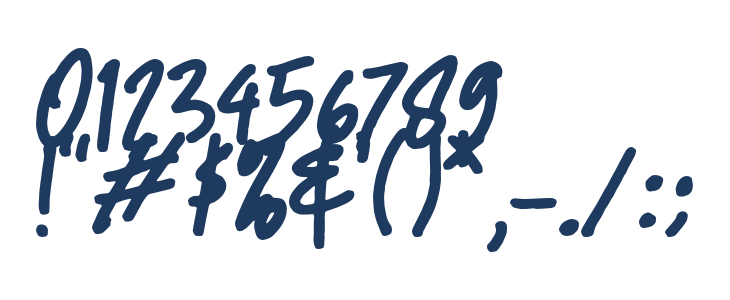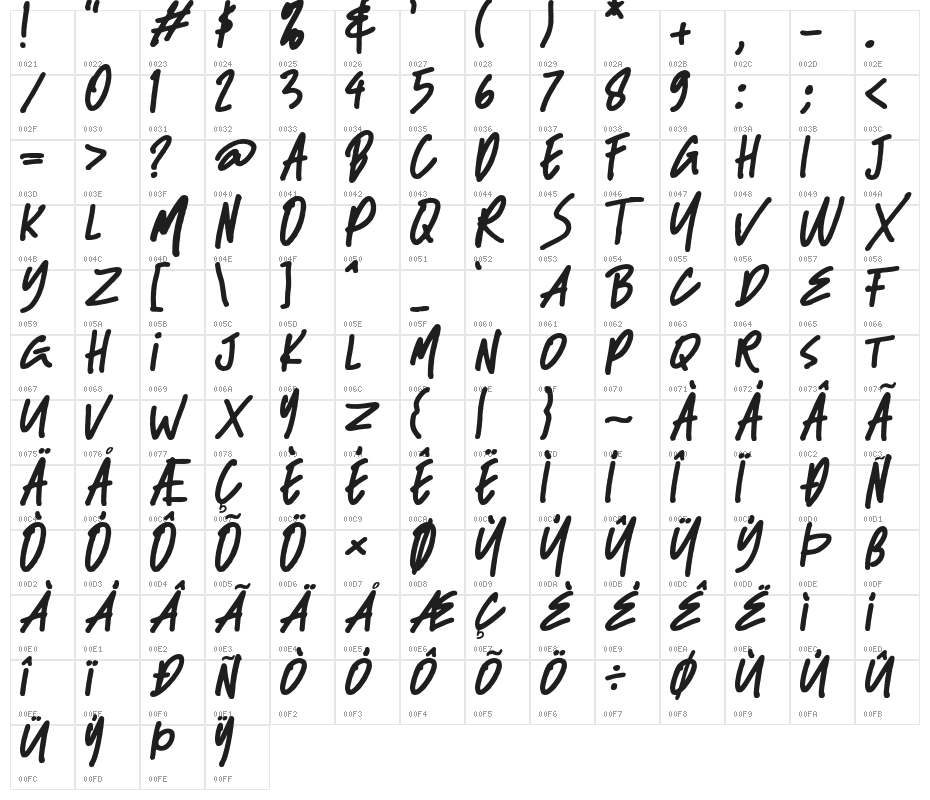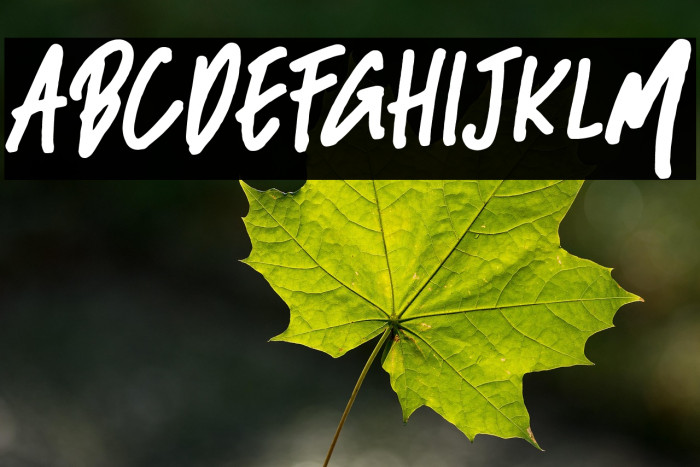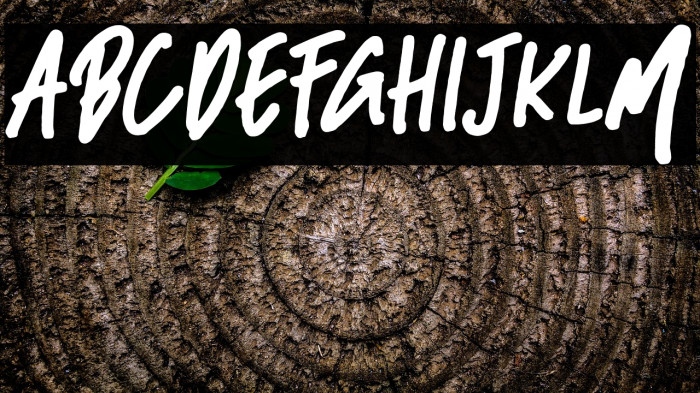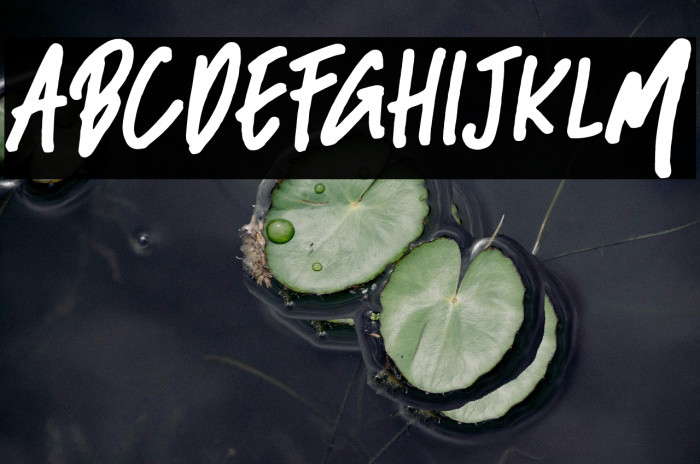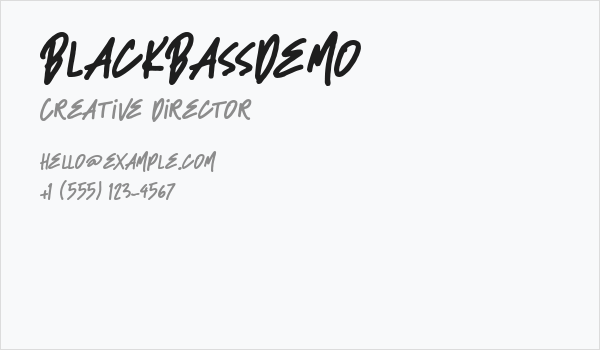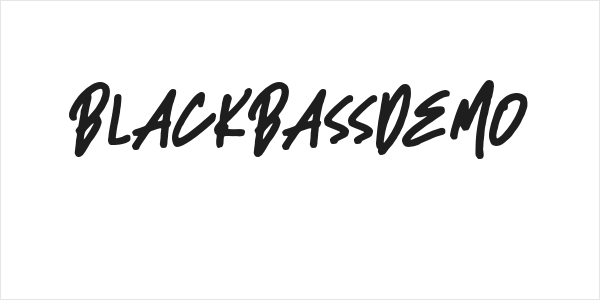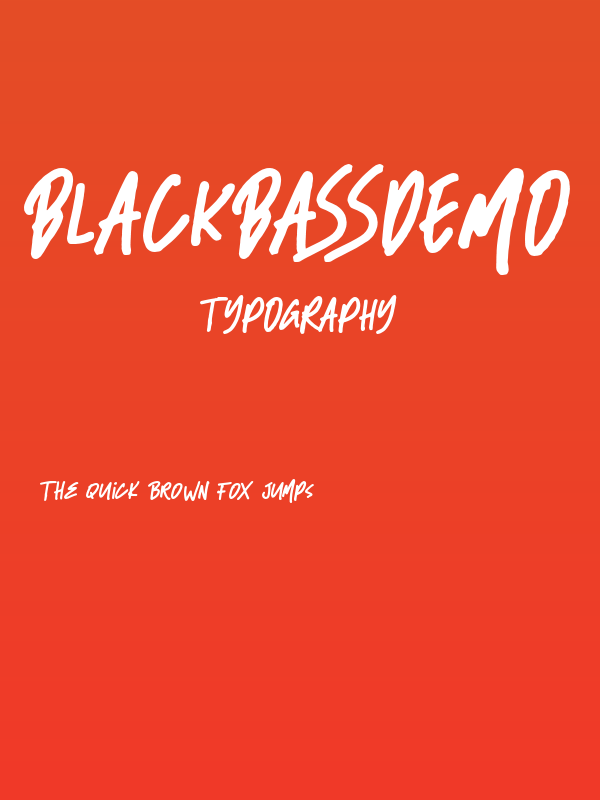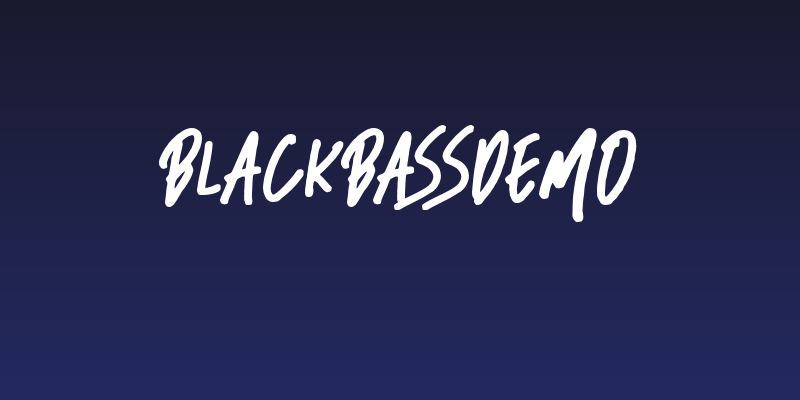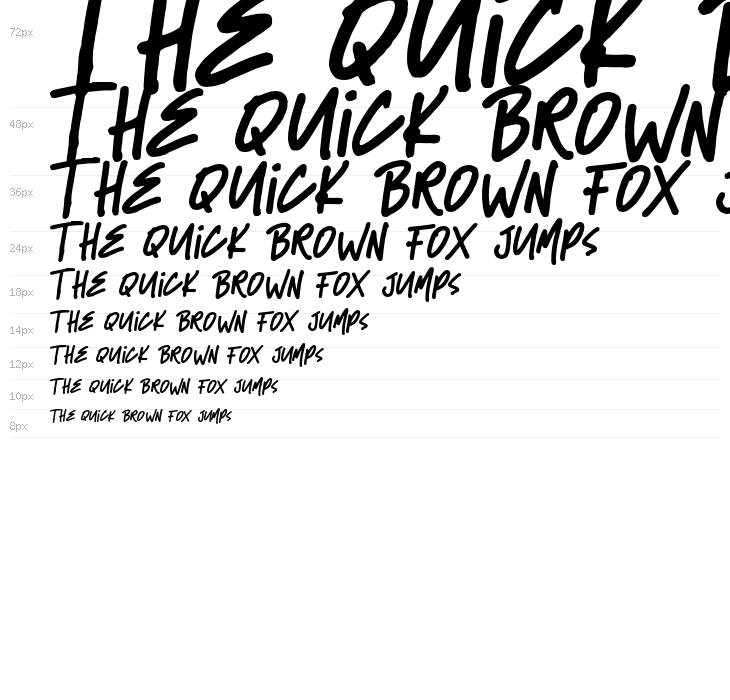
BlackBassDemo Font
BlackBassDemo Description
This font exudes a bold and energetic style, characterized by its thick, brush-like strokes that give it a dynamic and expressive appearance. The letters are slightly slanted, adding to the sense of movement and fluidity. Each character is uniquely crafted, with varying stroke widths that create a lively and informal feel. The uppercase and lowercase letters maintain a consistent style, while the numbers and special characters integrate seamlessly, offering a cohesive look. This font is ideal for projects that require a personal touch or a sense of creativity and spontaneity.
| Proposed Projects | Ideal for creative projects such as posters, branding, packaging, and social media graphics that require a lively and personal touch. |